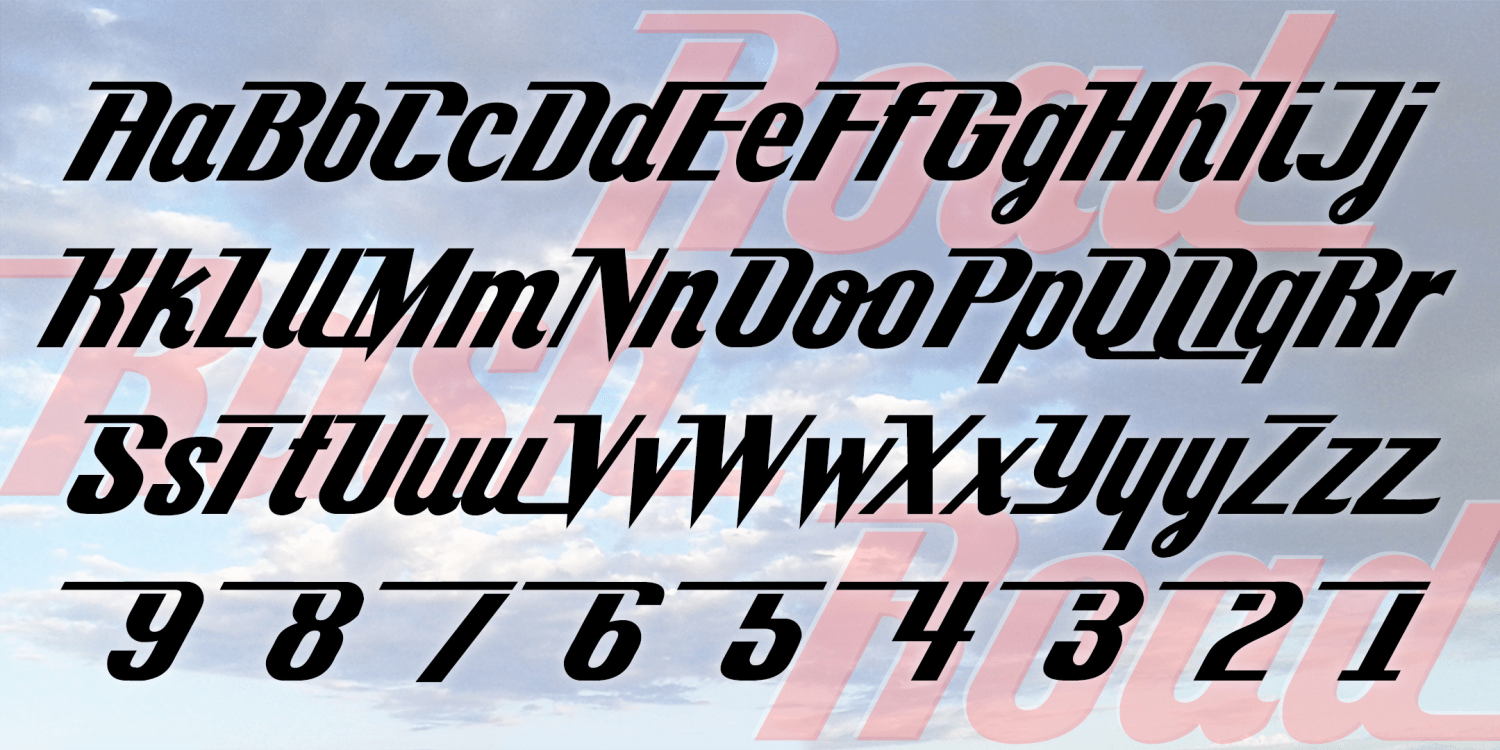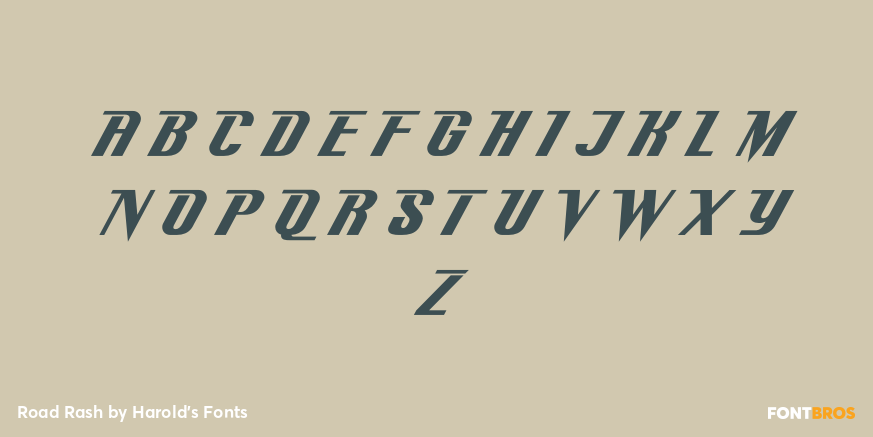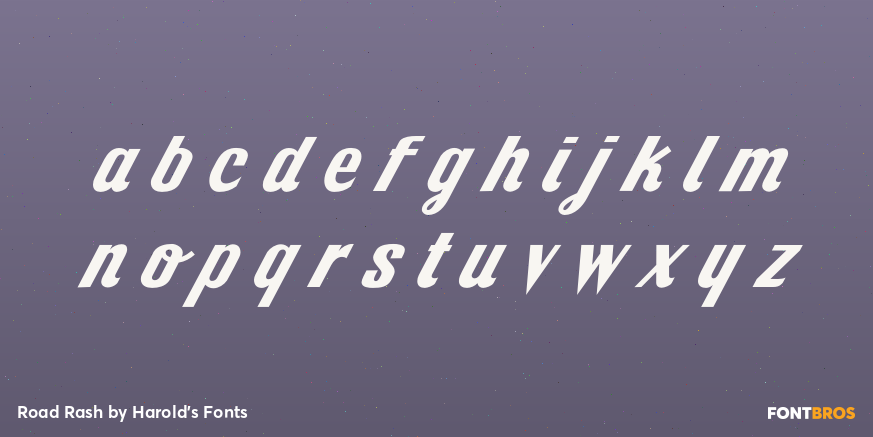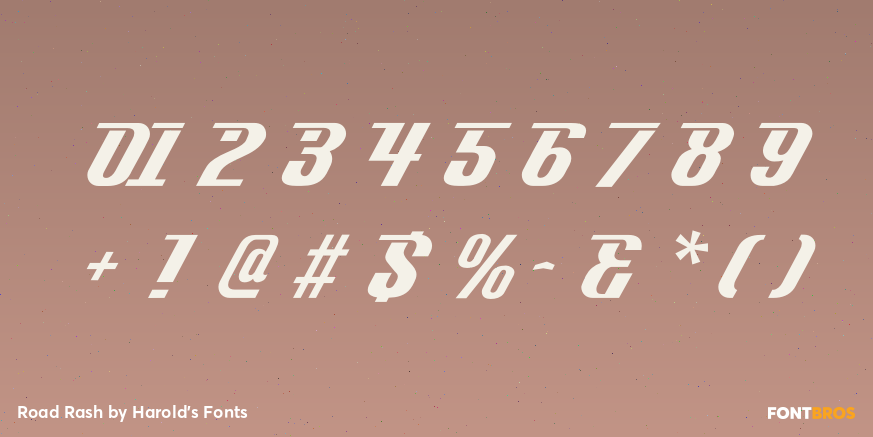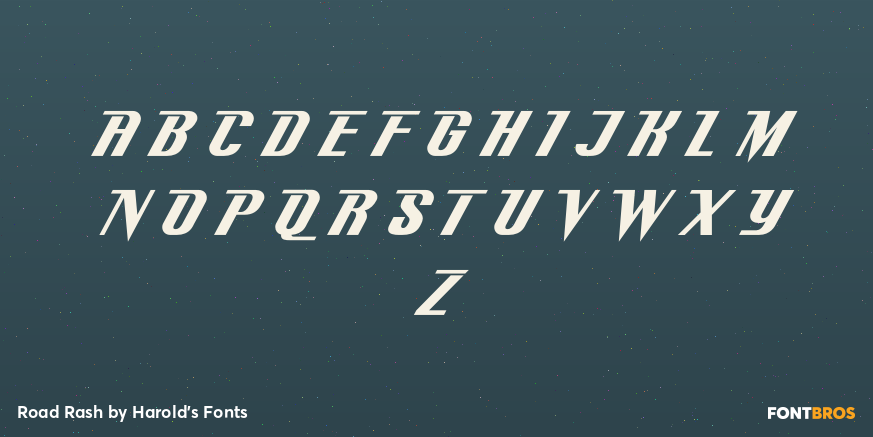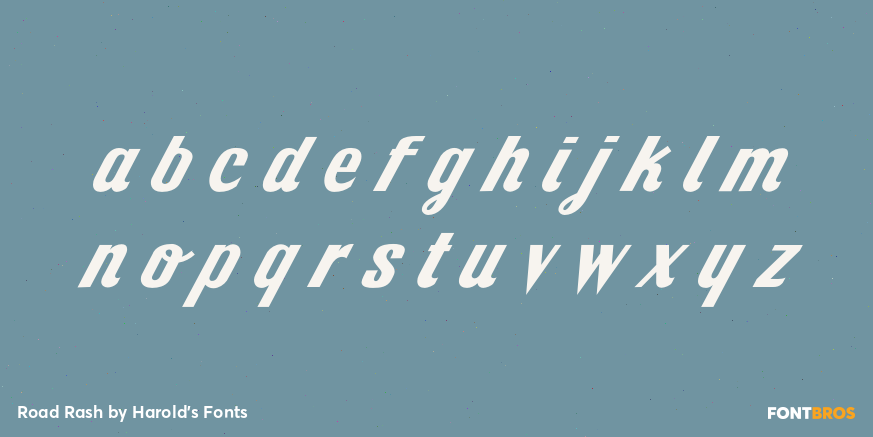
Road Rash
Font Family by Harold's Fonts
ROAD RASH is bold font with aspects of a cursive. The strong incline suggests forward movement; the contrast of thick and thin strokes gives it a distinctive style. Alternate letterforms allow more customization, including a long line that combines with caps and numbers.